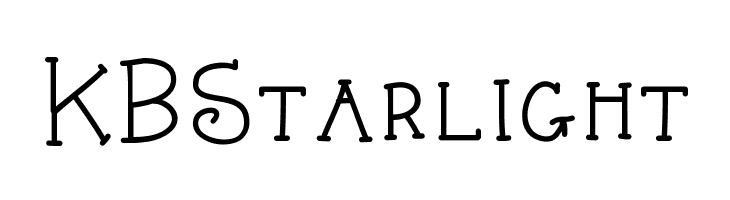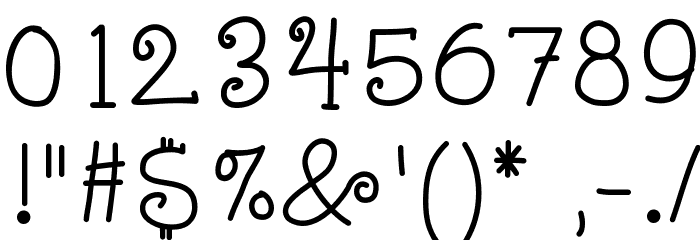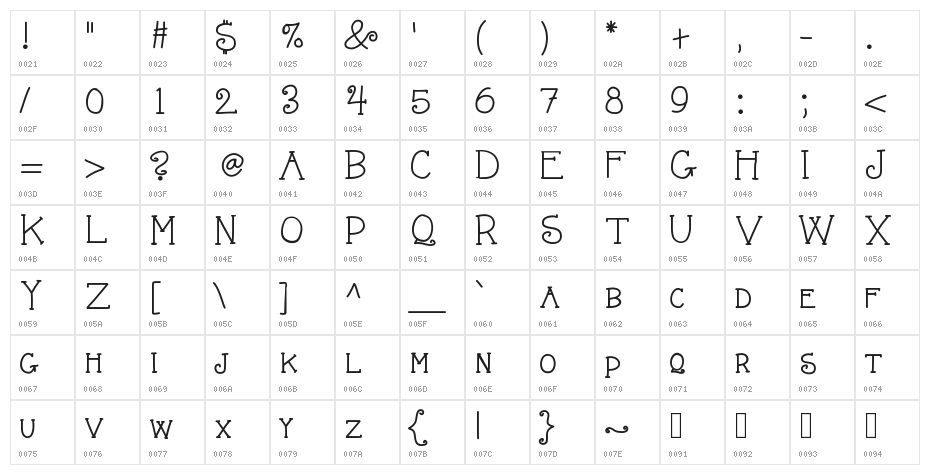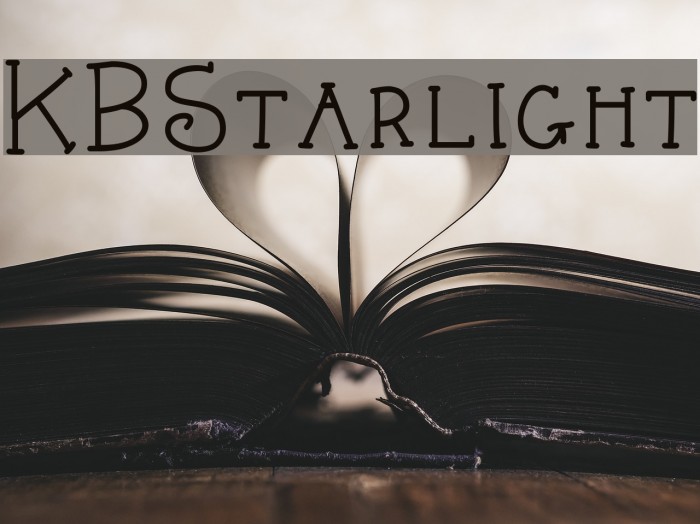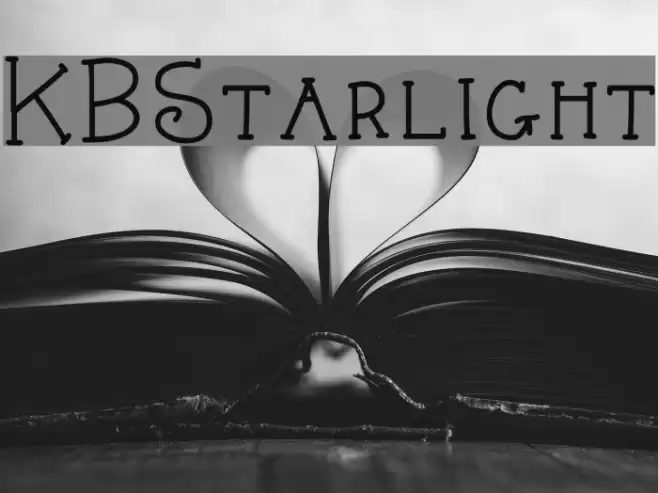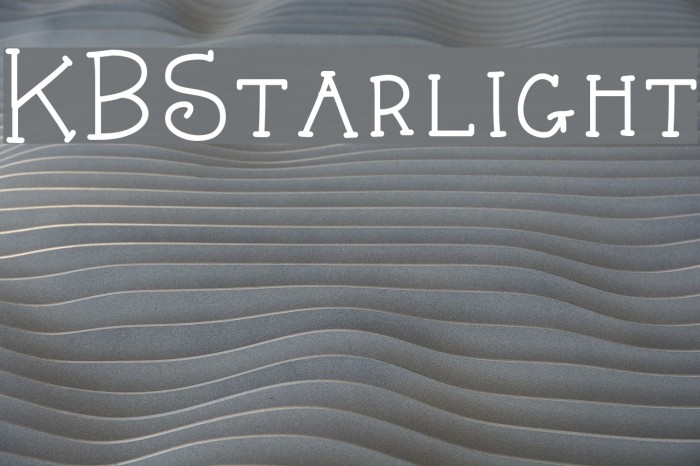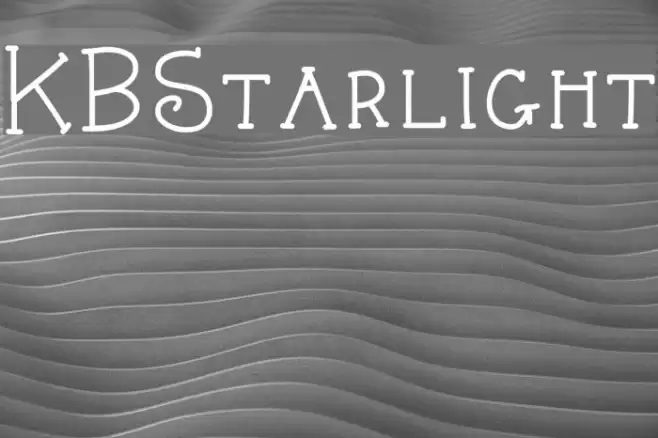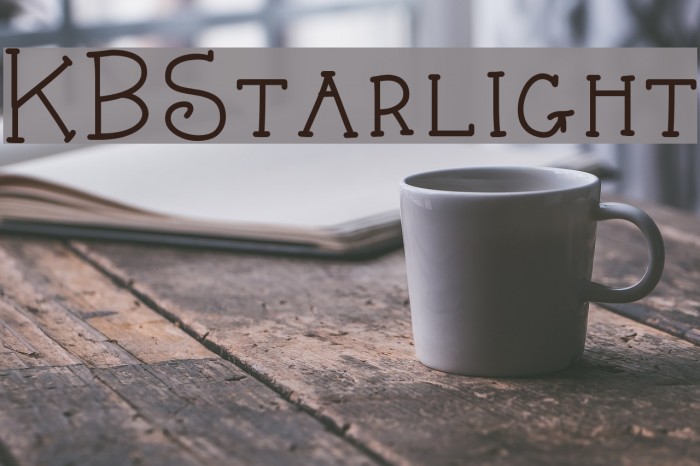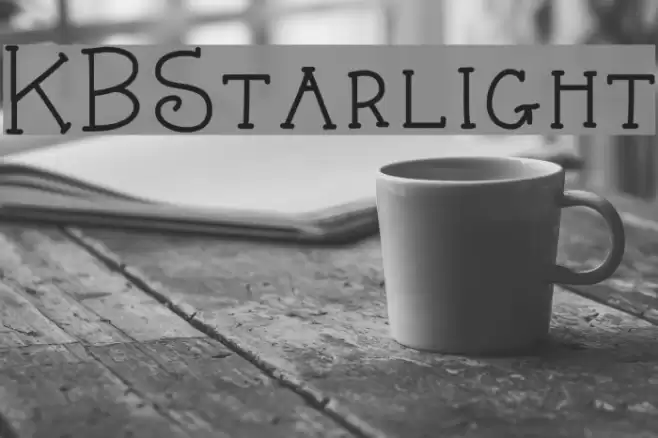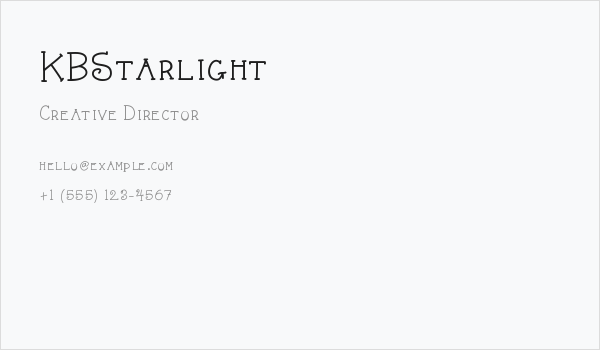
KBStarlight Font
KBStarlight Description
This font features a playful and whimsical design, characterized by its unique and quirky serifs. The letters have a hand-drawn quality, with slight variations in stroke width that add to its charm. The uppercase and lowercase letters maintain a consistent style, with rounded edges and a slightly irregular baseline that enhances its casual appearance. The numerals and special characters follow the same playful aesthetic, making the font suitable for creative and informal projects. Its overall style is both approachable and distinctive, making it a great choice for designs that aim to capture attention with a friendly and artistic vibe.
| Proposed Projects | Ideal for children's books, greeting cards, playful branding, and creative posters. |